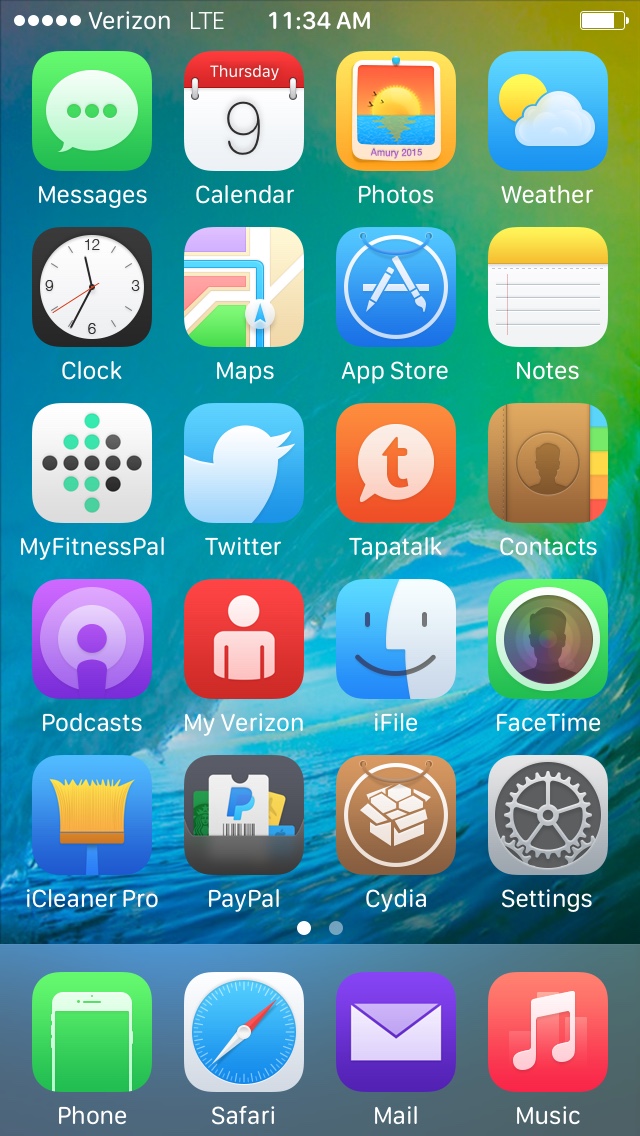
I saw that on the new dbk1ng.github.io repo theres 3 different San Fransisco fonts, whats the difference? (Regular, Rounded, Display)
Rounded is ugly and doesn't look like iOS 9 too thick imo.
What is the closest font to iOS 9's font? The standard one?
I used the "system font" files from the El Capitan beta for the regular version which is the closest to iOS 9
I found the rounded version when the 8.3 Jailbreak was released in System/Library/Fonts/Extra
& Display I got from a friend who acquired it after the Apple Watch announcement